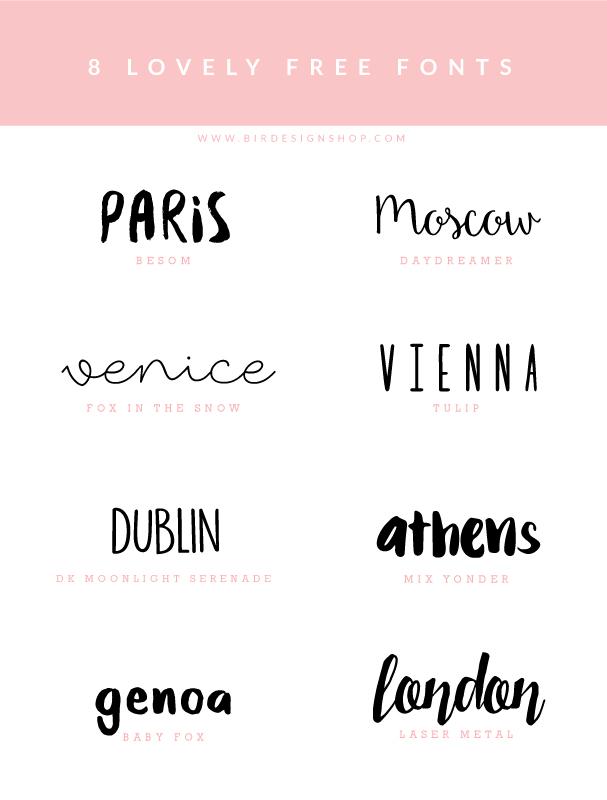
Fonts inspiration - download free
If you're always on the look for newer and fresher fonts you're going to love these! Here's a selection of 8 spectacular fonts we have carefully picked for you, each has an organic hand-drawn feel to it, making them the perfect options for versatile applications such as cards, social media posts, branding or marketing material.